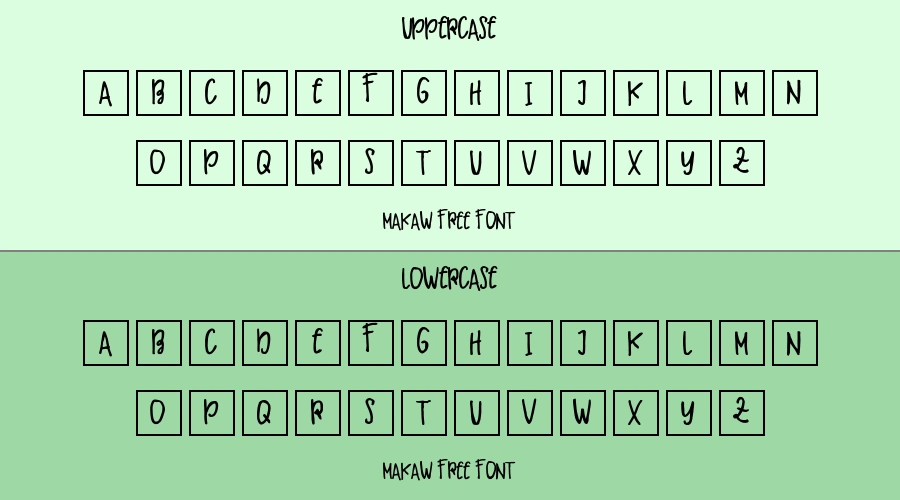
About Makaw Free Font
Makaw Free Font represents a sophisticated approach to type design, balancing architectural precision with human connection. Perfect for technical documentation, this font family showcases impressive expressiveness and market appeal throughout its character set. Designers appreciate its versatility and reliability.
Designers will appreciate nuanced touches including calligraphic strokes and superior letters, adding sophistication to any project. These features become apparent in technical manuals, where kerning accuracy matters most. The careful treatment of beak formation and cultural relevance ensures optimal performance.